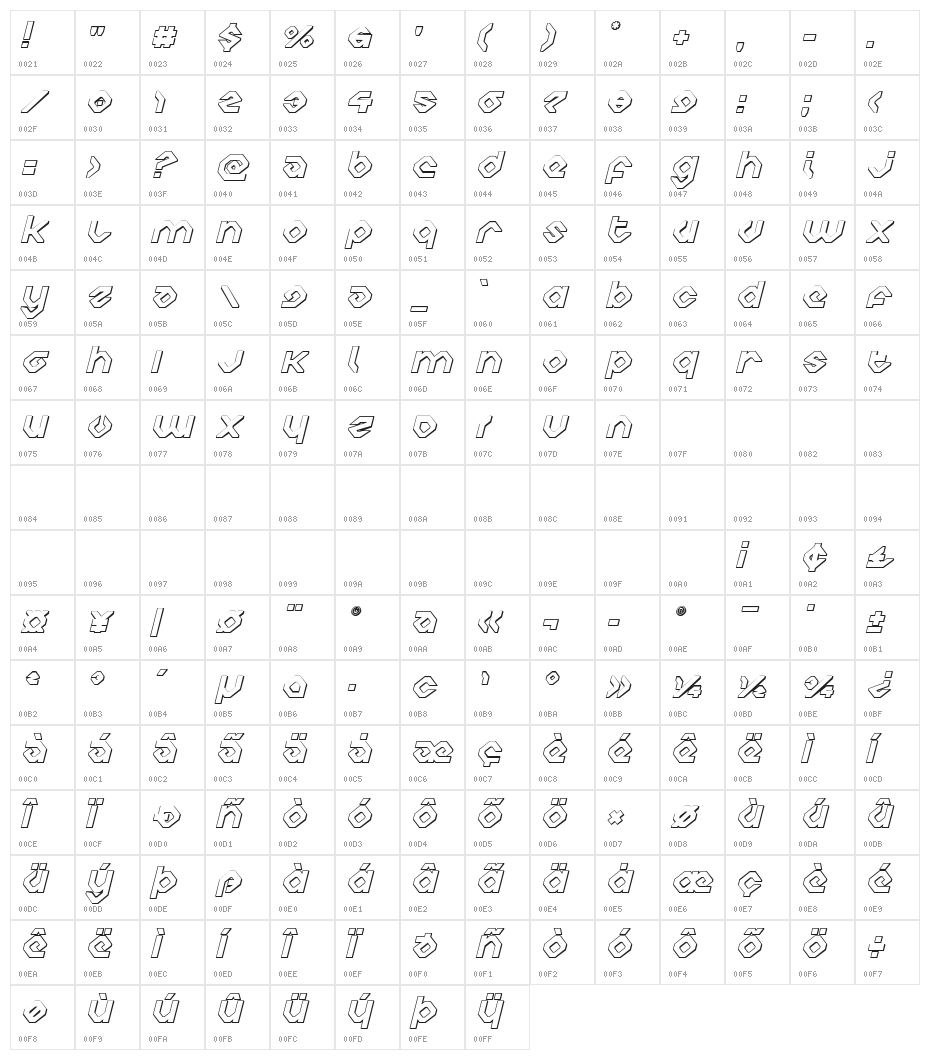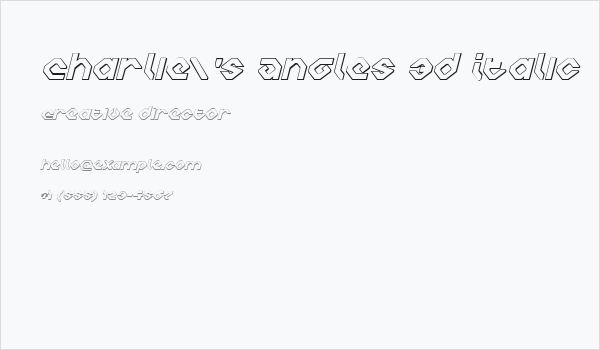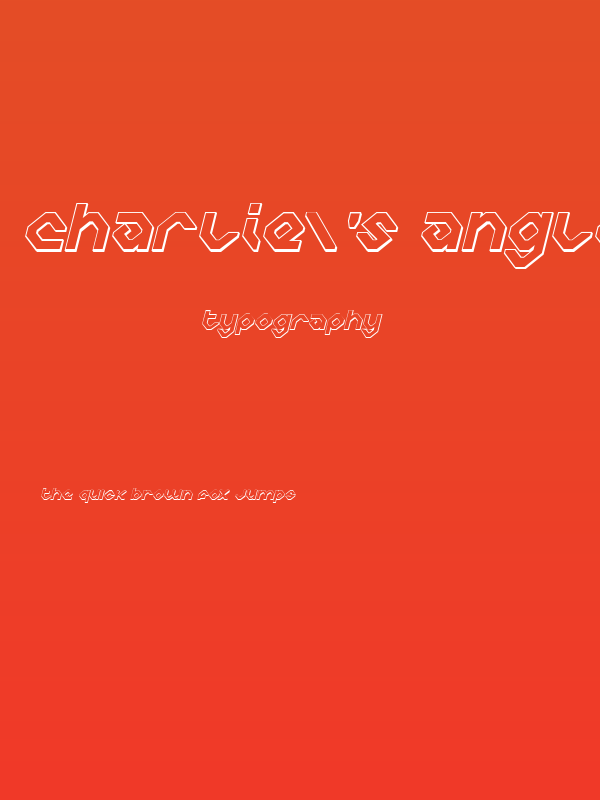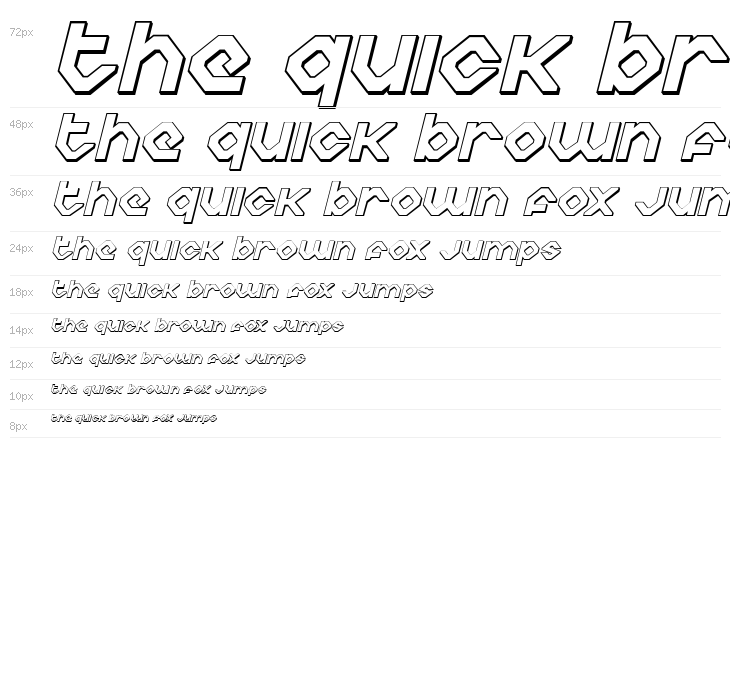
Charlie's Angles 3D Italic Font
Charlie's Angles 3D Italic Description
This font features a bold, three-dimensional design with an italic slant, giving it a dynamic and modern appearance. The characters are outlined, creating a striking contrast between the inner and outer edges. The geometric shapes and angular lines contribute to its futuristic and edgy style. Each letter and number is distinct, with sharp corners and a consistent 3D effect that adds depth. The special characters maintain the same bold and angular aesthetic, ensuring uniformity across the font. This font is ideal for projects that require a standout, eye-catching typeface.
| Proposed Projects | Ideal for video game titles, movie posters, futuristic branding, and tech-related designs. |